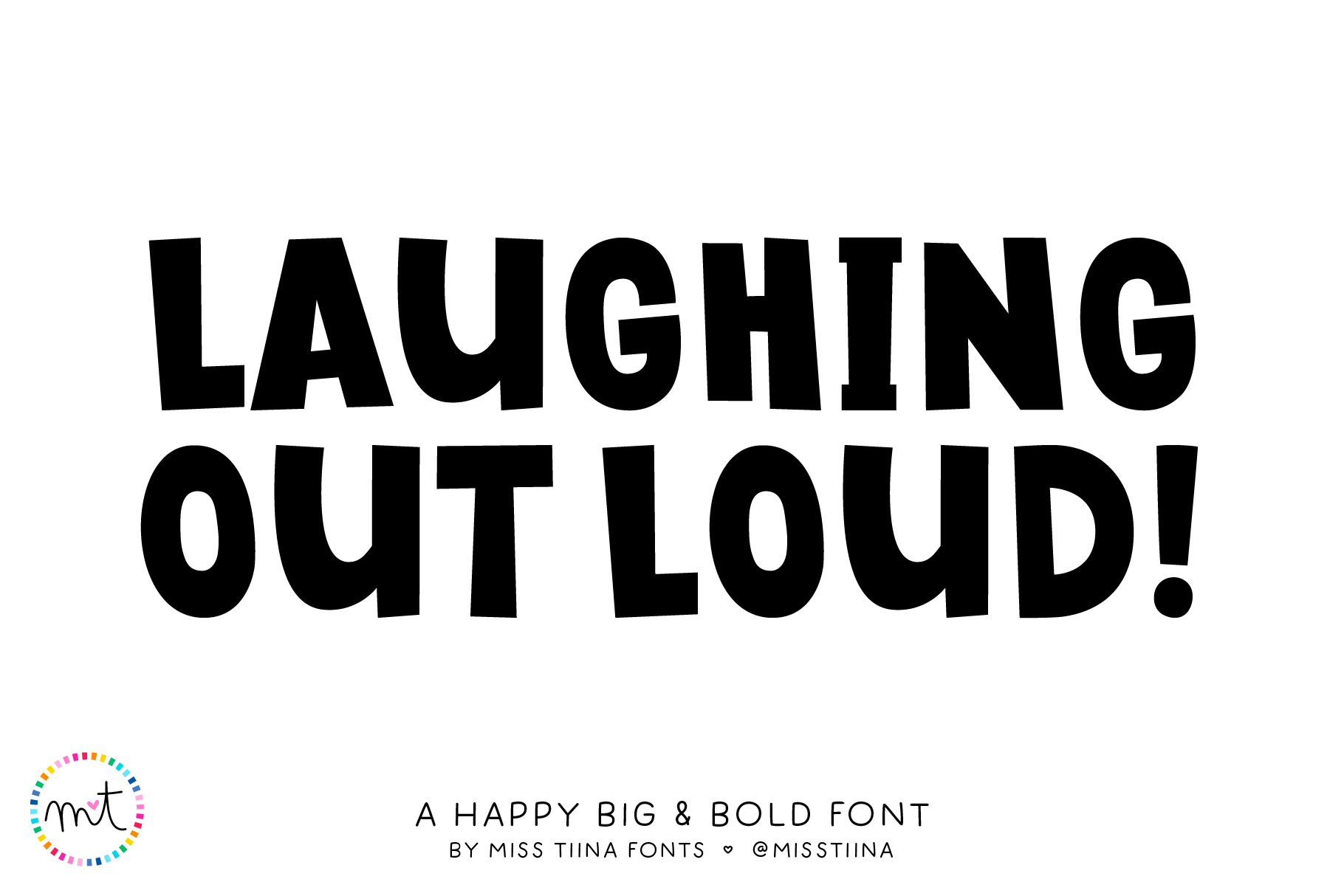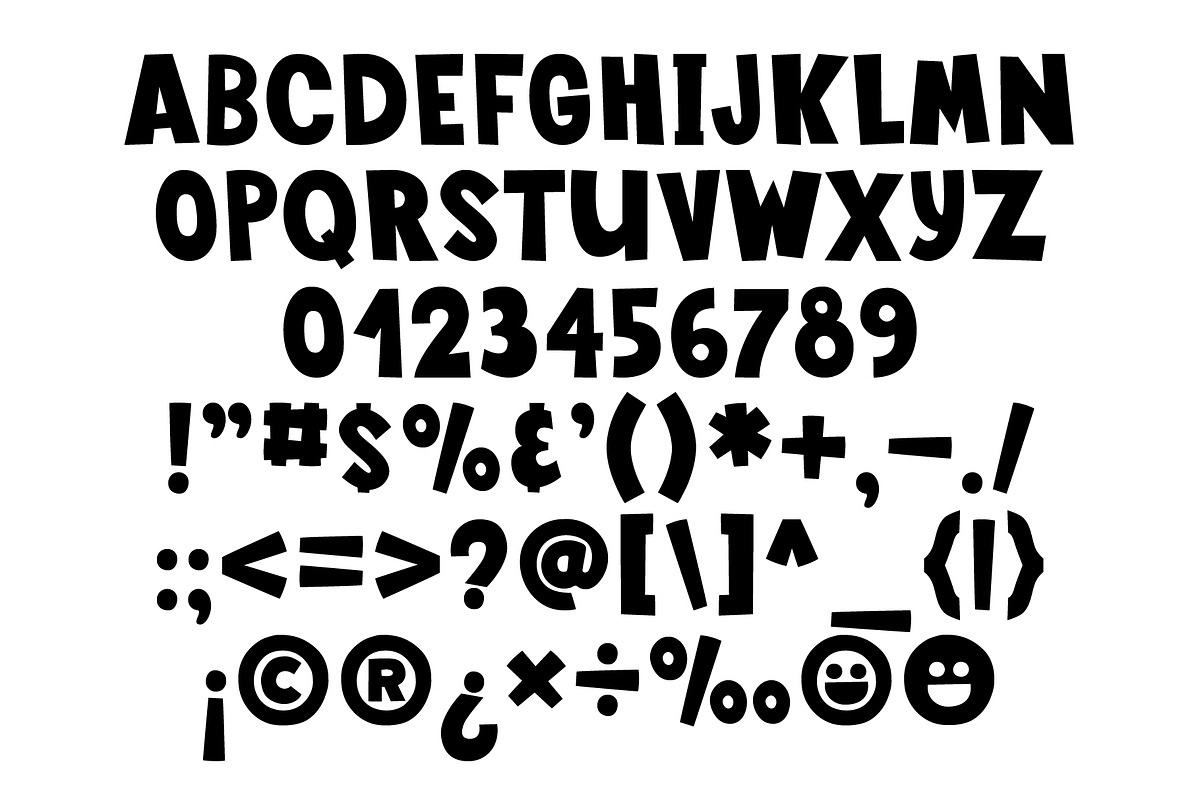
Laughing Out Loud Font
“Laughing Out Loud” is a happy, big, and bold font bursting with personality! Its chunky letters and playful style make every word feel fun, friendly, and full of joy — perfect for designs that want to shout positivity from the rooftops.